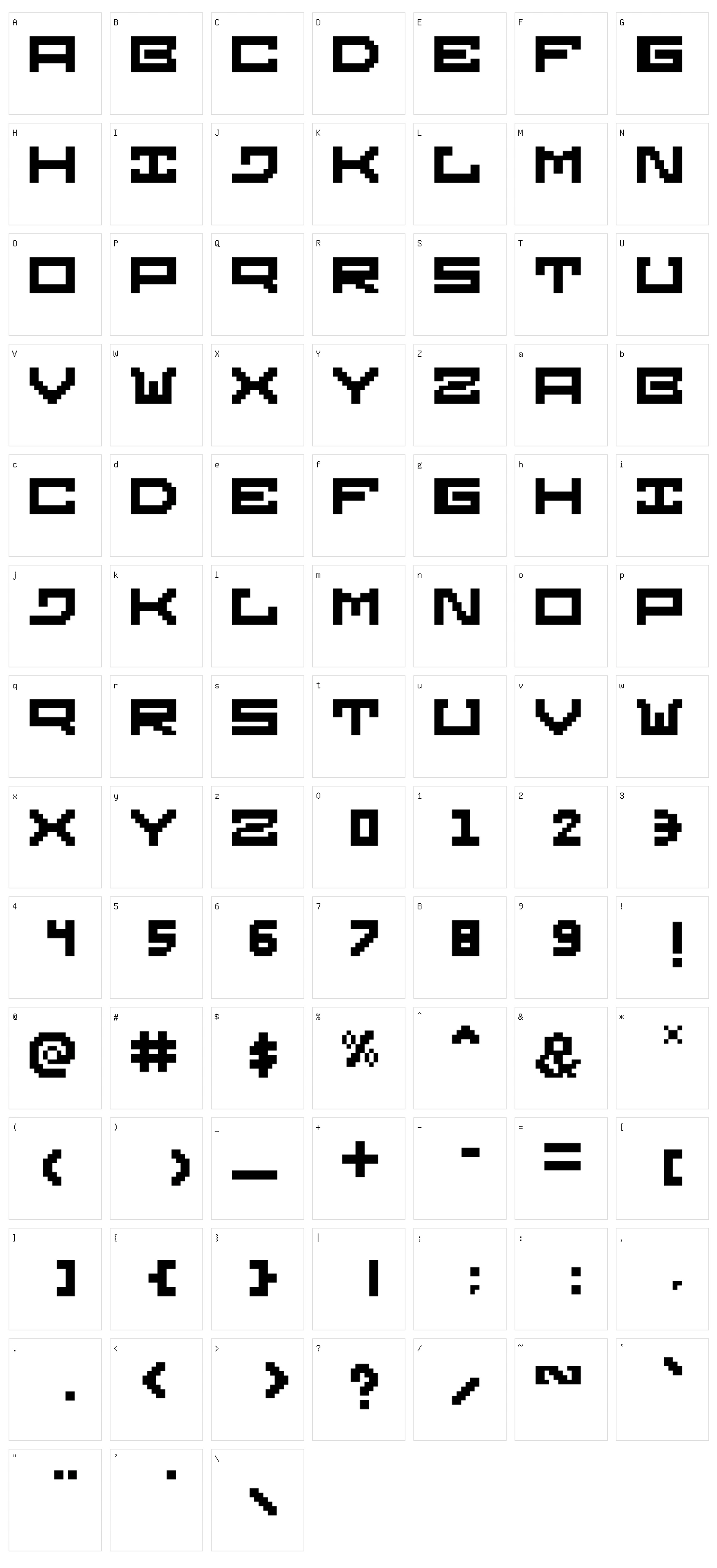
The free font Gridilatia is carefully designed by PoizonDeztruktion, showcasing a thoughtful balance of creativity and usability and falls under the Square font style. When you download the ZIP file, it contains only 5.85 KB of font files, making it lightweight and quick to download. Please review the license details below to understand permitted usage and distribution rights. If license information is not available, we recommend using this font for personal projects only or contacting the author directly for commercial usage permissions.